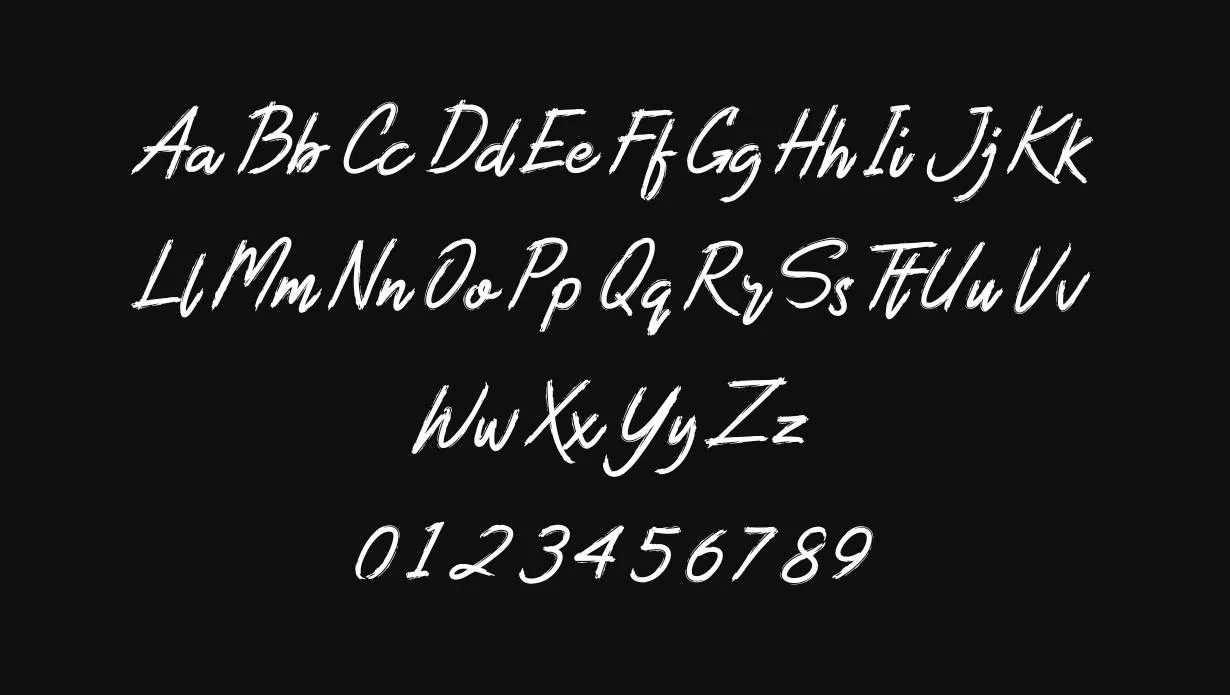
Blackbeard font sails in like a pirate ship on the high seas—strong, daring, and full of tales. When you use it, your words become like a captain’s log, telling stories with a bold and adventurous spirit.
| Name | Blackbeard Font |
| Designer | Fonthead Design |
It’s perfect for crafting posters or signs that need that touch of swashbuckling excitement. Blackbeard’s letters stand proudly, each one contributing to the overall aura of a daring escapade on the seven seas.